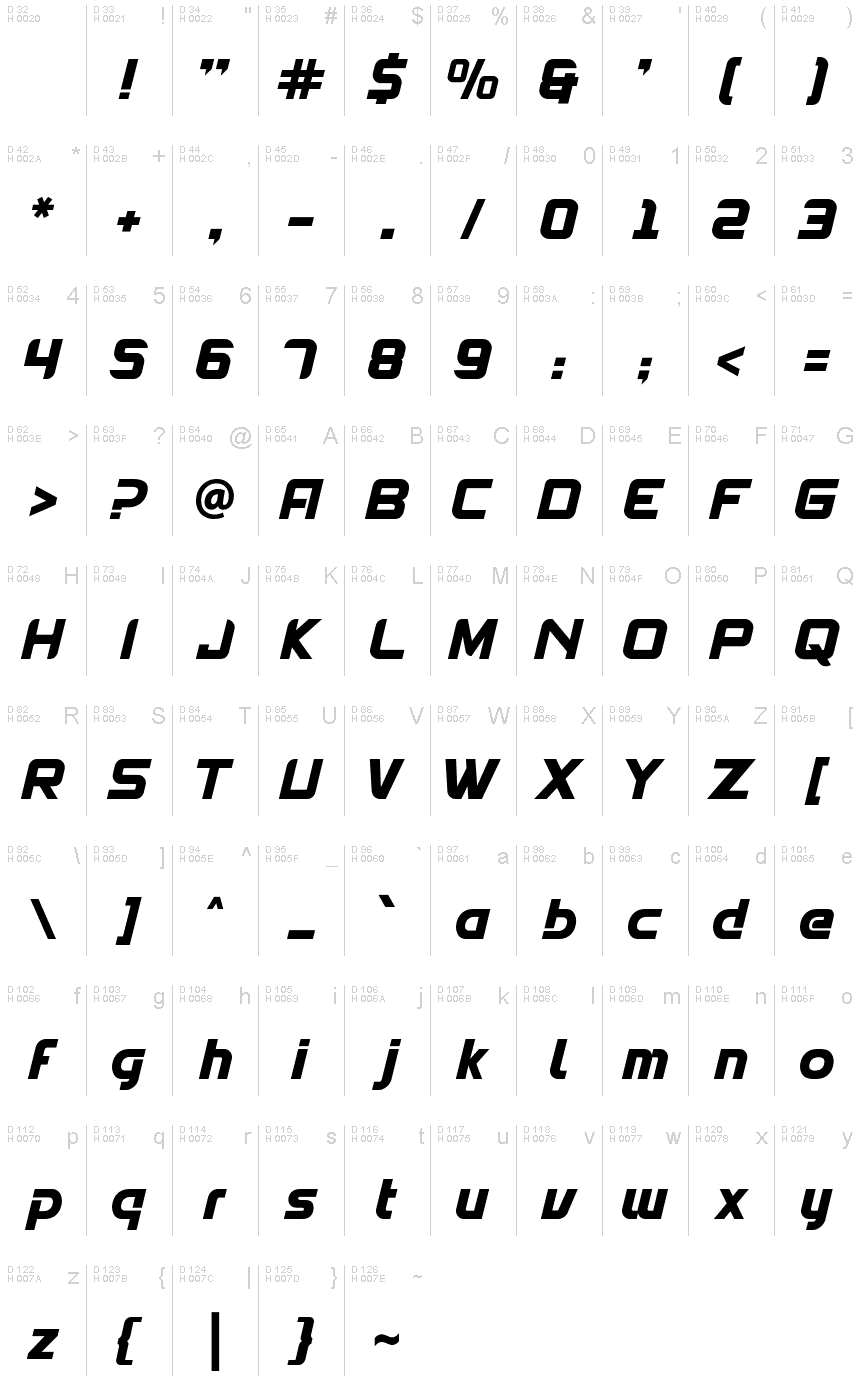
Spantaran
"SPANTARAN" is a sports display typeface which font is very suitable for logos, titles, player names on the jersey, and more.
Made with Italic & Bold characters that make this font very strong and perfect.
A SPORTY DISPLAY TYPEFACE